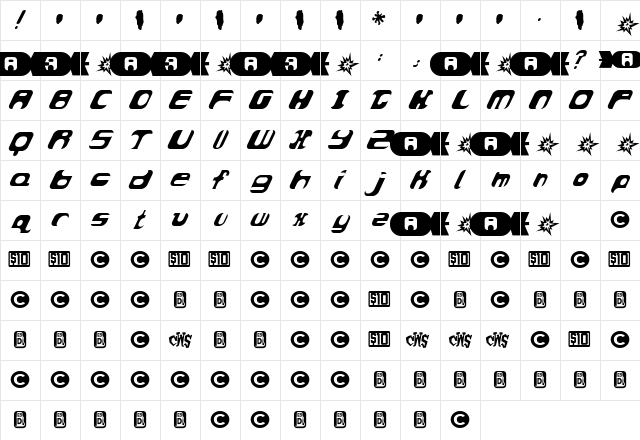
AtomBomb Speedster Free Font
AtomBomb Speedster
Style: Speedster
Design Context for AtomBomb
AtomBomb is a composed and adaptable typeface that performs quietly and consistently across a wide range of design contexts.